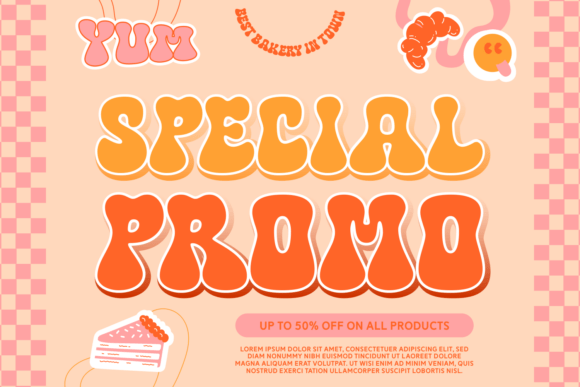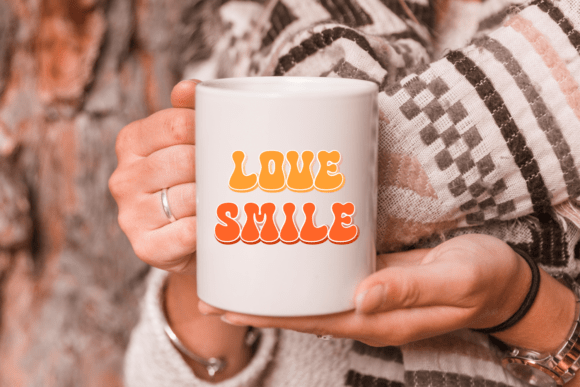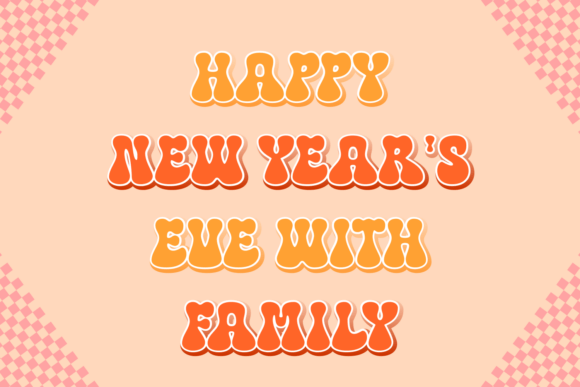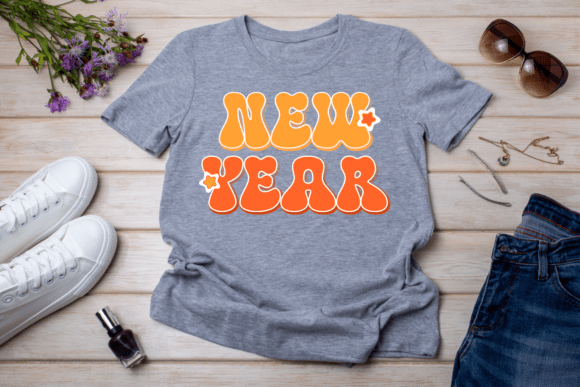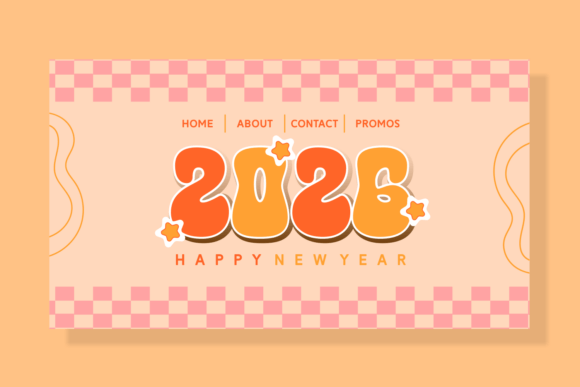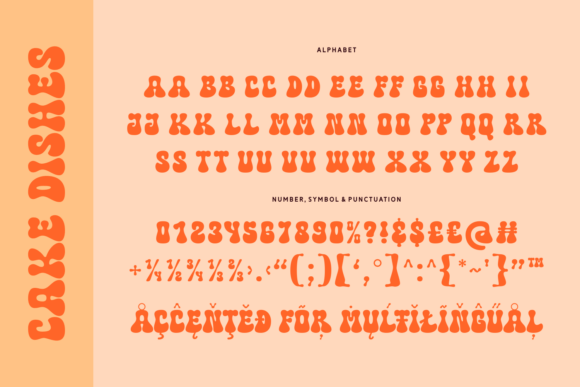
Cake Dishes Font: A Delicious Blend of Retro and Graffiti Styles
Are you a designer or crafter looking for a unique and versatile typography solution? Look no further than Cake Dishes Display Fonts! This creative fusion of retro and graffiti styles is designed to evoke the style of street writing, making it perfect for dynamic logotype designs, book covers, inspiring quotes, and vibrant wallpapers.
A Perfect Blend of Retro and Graffiti
Cake Dishes Font is a delightful blend of retro and graffiti styles, making it a standout in the world of typography. The font’s unique aesthetic is characterized by its bold, playful, and charming design, which is sure to capture the attention of your audience. Whether you’re looking to create a bold statement or add a touch of whimsy to your design, Cake Dishes Font is the perfect choice.
Versatile Typography Solution
One of the best things about Cake Dishes Font is its versatility. The font can be used for a wide range of creative projects, from dynamic logotype designs to book covers, inspiring quotes, and vibrant wallpapers. The font’s simple yet charming design makes it easy to use and adapt to different design styles, making it a perfect fit for diverse creative needs.
Cute and Beautiful Aesthetic
Cake Dishes Font has a delightful charm channeled through its cute and beautiful aesthetic. The font’s design is groovy in character, making it perfect for designers and crafters who want to add a touch of fun and playfulness to their designs. The font’s bold and playful design is sure to capture the attention of your audience and leave a lasting impression.
Simple in Usage, Popular in Appeal
Despite its versatility and charm, Cake Dishes Font remains simple in usage. The font is easy to use and adapt to different design styles, making it a perfect fit for designers and crafters of all skill levels. Whether you’re working on a school project or a commercial design, Cake Dishes Font is easy to use and understand, making it a popular choice among designers and crafters.
Cake Dishes Font is ideal for designers and crafters who want to add a touch of uniqueness and creativity to their designs. The font’s versatility and charm make it perfect for a wide range of creative projects, from logotype designs to book covers and wallpapers. Whether you’re a professional designer or a crafter looking for a unique typography solution, Cake Dishes Font is a perfect choice.
Key Features of Cake Dishes Font
- Retro and Graffiti Styles: Cake Dishes Font is a creative fusion of retro and graffiti styles, making it perfect for dynamic logotype designs and street writing-inspired designs.
- Versatile Typography Solution: The font can be used for a wide range of creative projects, from logotype designs to book covers and wallpapers.
- Cute and Beautiful Aesthetic: The font has a delightful charm channeled through its cute and beautiful aesthetic, making it perfect for designers and crafters who want to add a touch of fun and playfulness to their designs.
- Simple in Usage: Despite its versatility and charm, Cake Dishes Font remains simple in usage, making it easy to use and adapt to different design styles.
In conclusion, Cake Dishes Font is a delicious blend of retro and graffiti styles that is perfect for designers and crafters looking for a unique and versatile typography solution. The font’s cute and beautiful aesthetic, versatility, and simplicity make it a perfect fit for diverse creative needs. Whether you’re working on a school project or a commercial design, Cake Dishes Font is sure to add a touch of fun and playfulness to your designs.